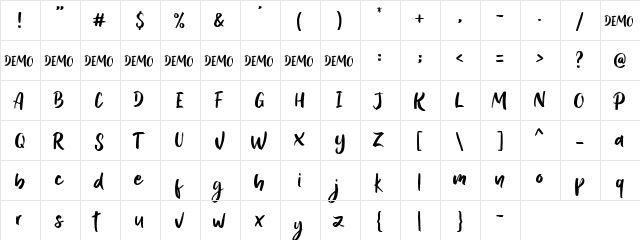
Jettro Demo Regular Font Preview
Jettro Demo Regular
Jettro Demo Regular Font Details
Design Context for Jettro Demo Typeface
Jettro Demo is a composed and adaptable typeface that performs quietly and consistently across a wide range of design contexts.